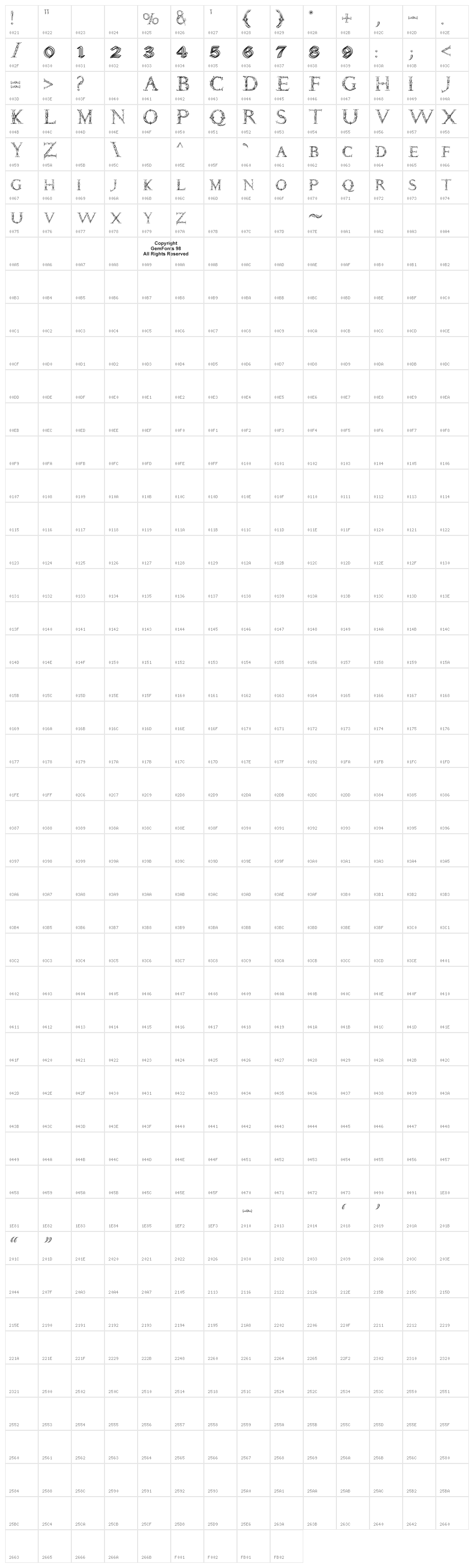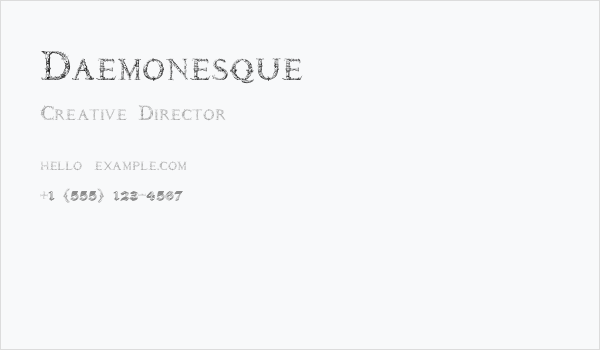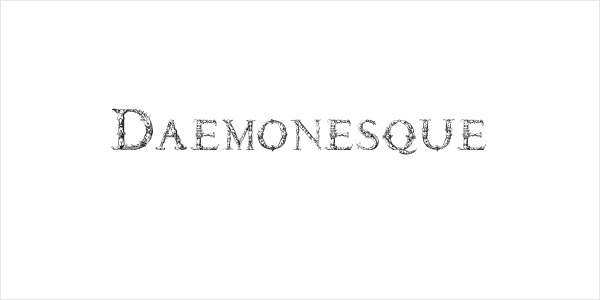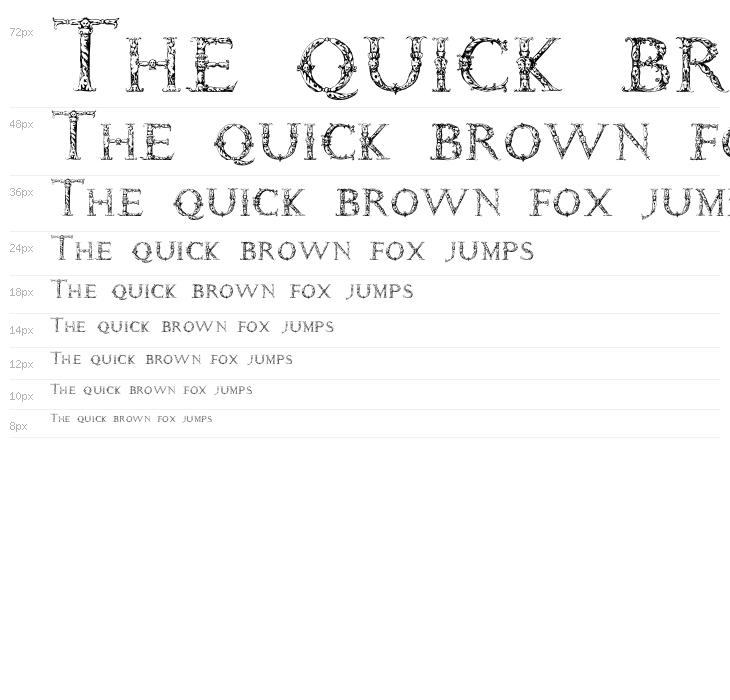
Daemonesque Font
Fonts by Graham Meade - GemFonts
| Progetti proposti | Ideal for gothic-themed designs, book covers, posters, and branding that requires a dramatic and sophisticated touch. |